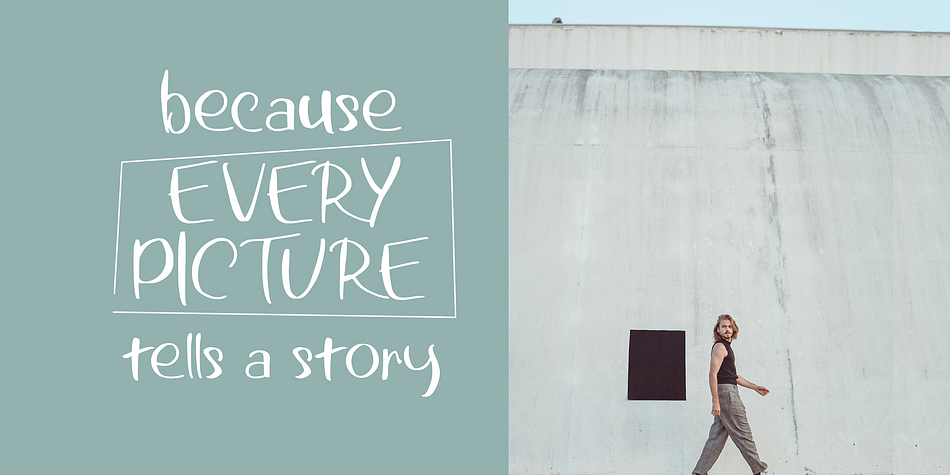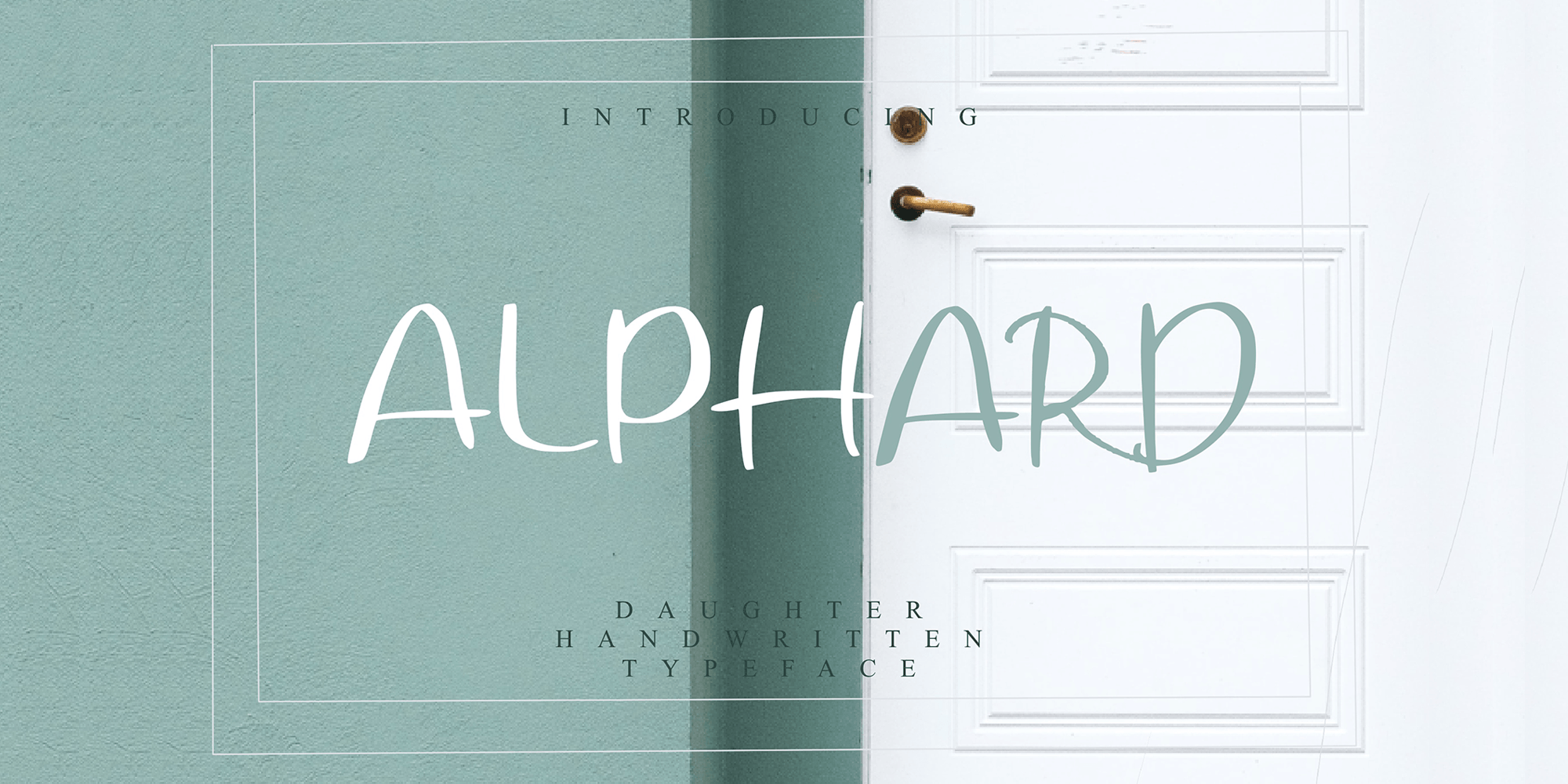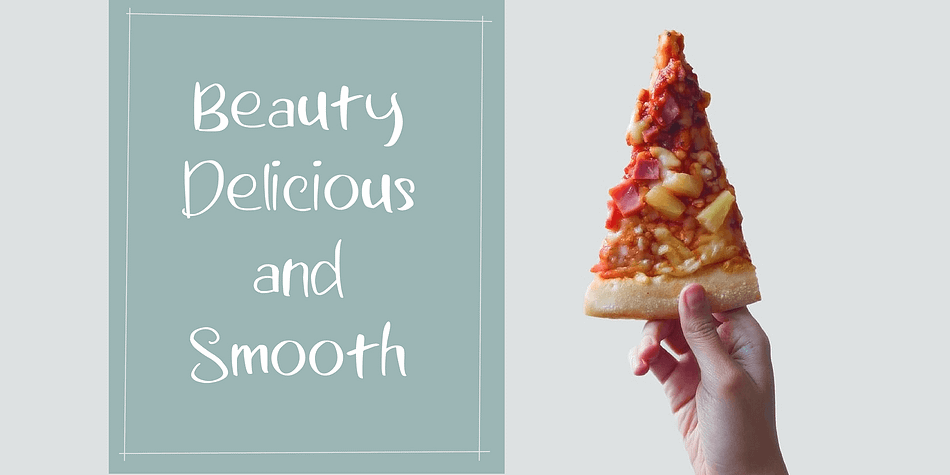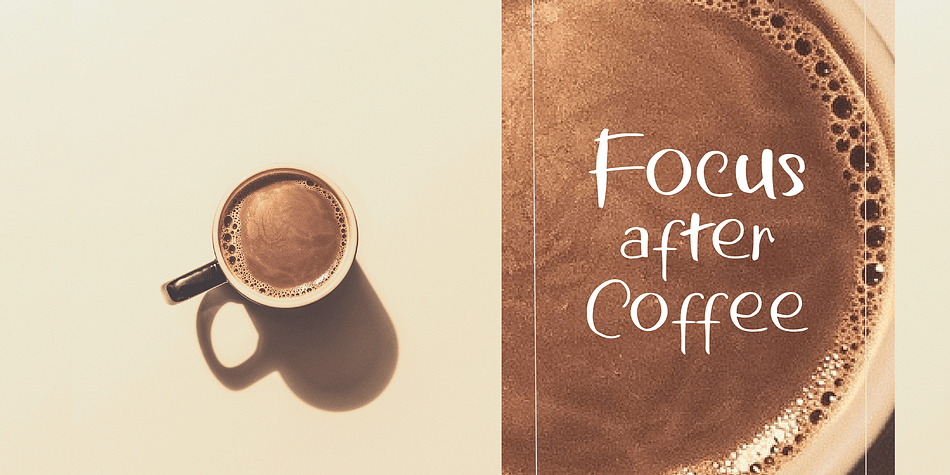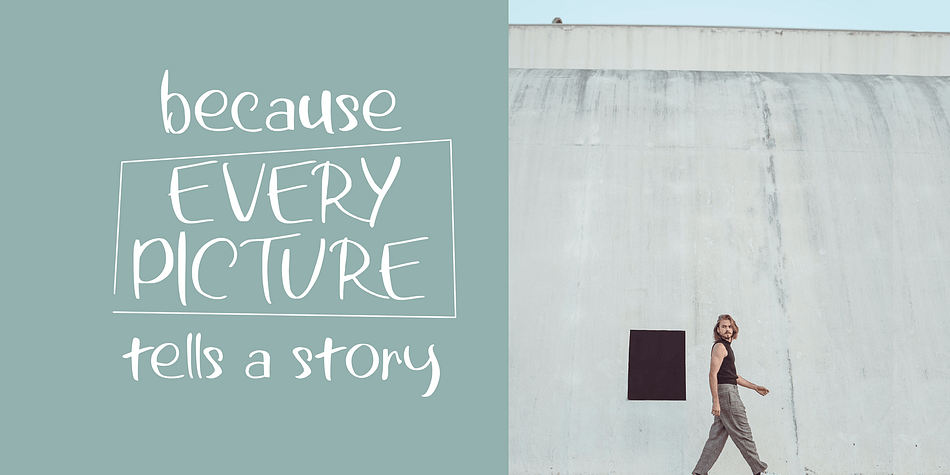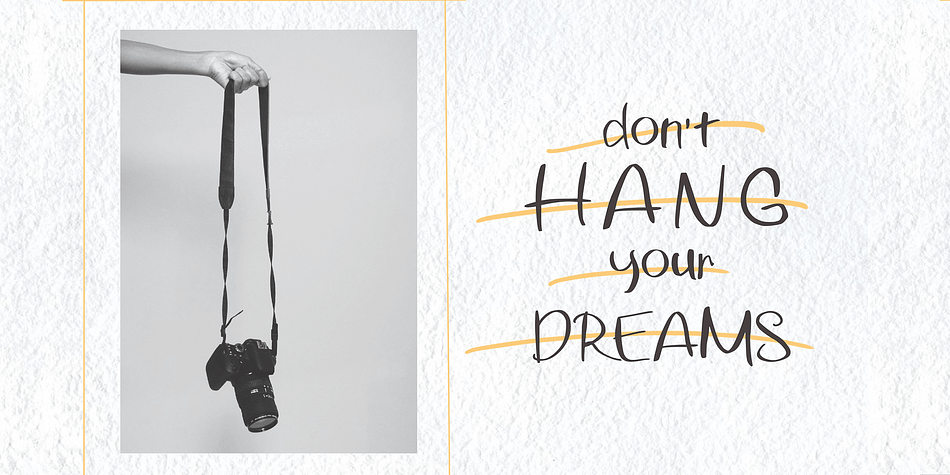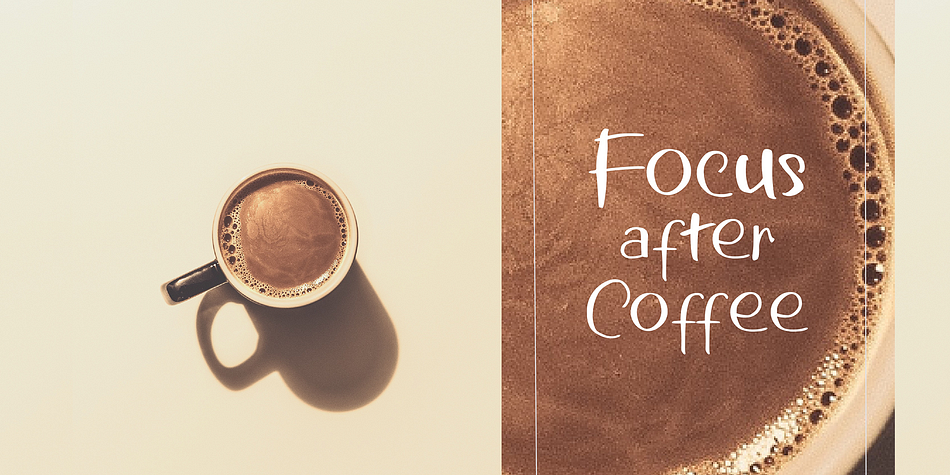
Alphard is a hand drawn and kids font published by Bonjour Type.
The Alphard font is a cute script font designed by my daughter inspired by the name of the luxury vehicle she dreams of.
Suitable for making packaging products, motivational quotes, social media, marriage, or simply used to reveal the words above background.
Featured font: Uppercase, lowercase, digits, symbols, accents, and Alternative Style also supports multilingual.